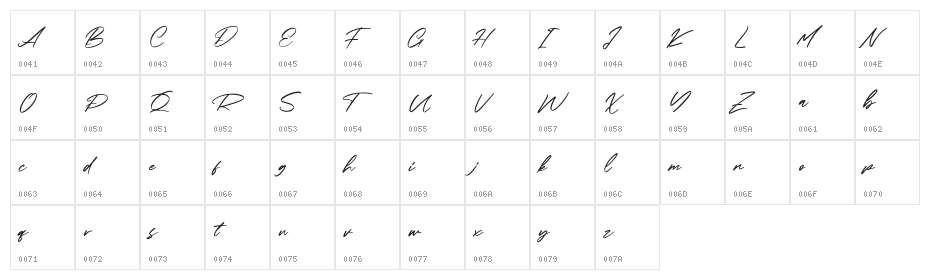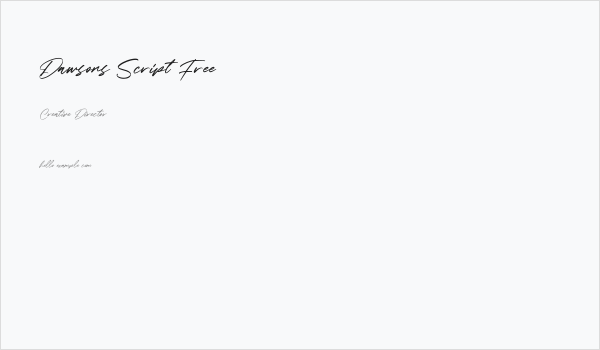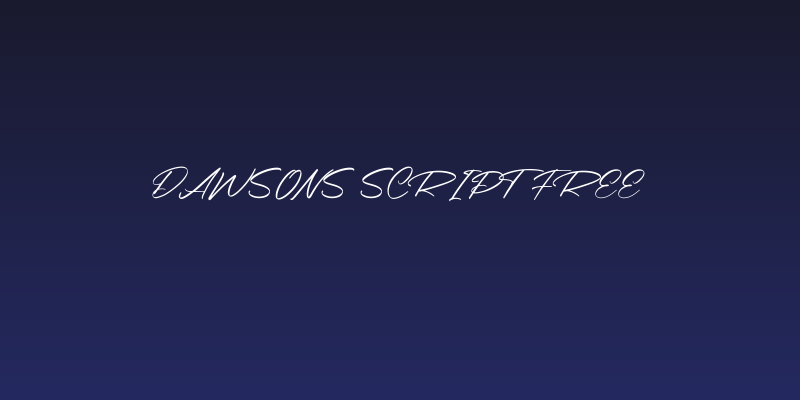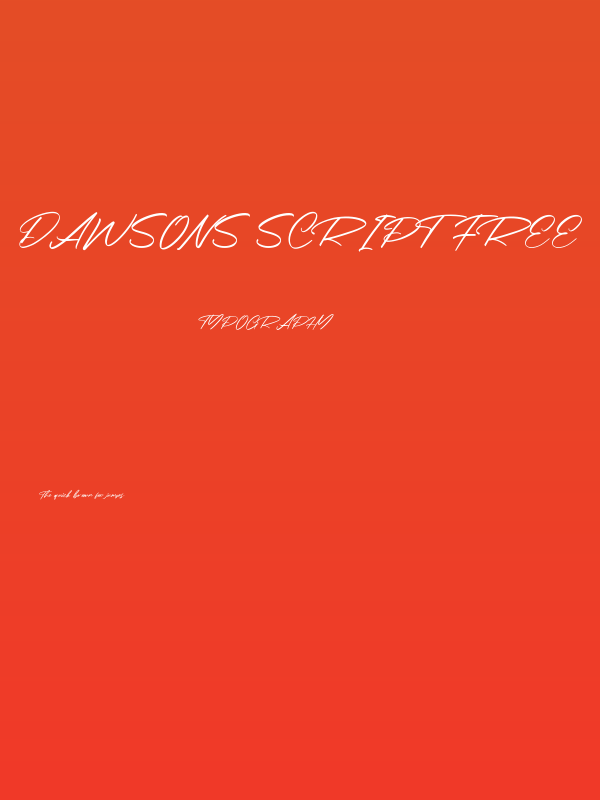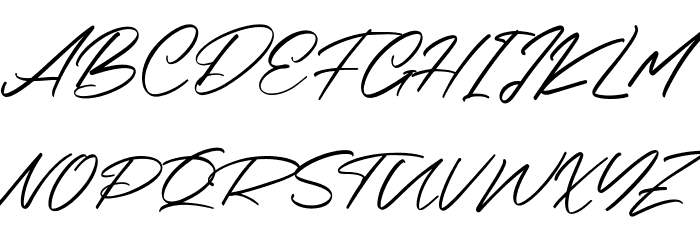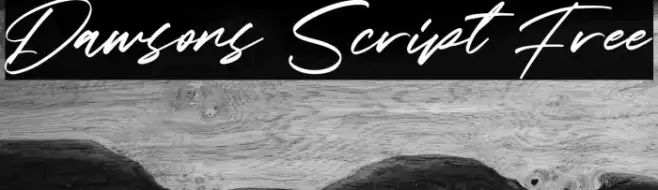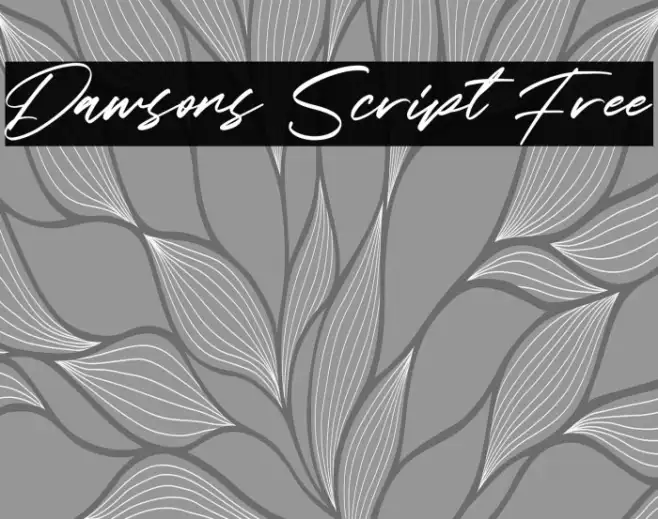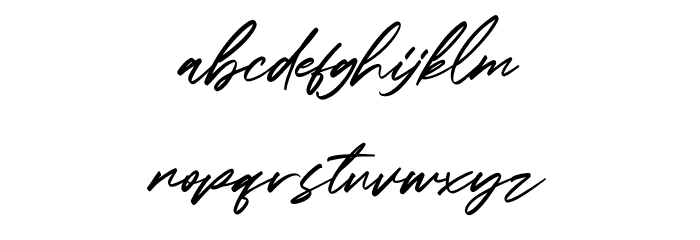
Dawsons Script Free Font
Dawsons Script Free Description
This elegant script font features a fluid and graceful design, characterized by its flowing cursive strokes and smooth connections between letters. The uppercase letters are bold and sweeping, with a distinct flair that adds a touch of sophistication. The lowercase letters maintain a consistent rhythm, enhancing readability while preserving the font's artistic style. The numerals and special characters are crafted with the same attention to detail, ensuring a cohesive look across all text. This font is ideal for projects that require a personal and stylish touch, such as invitations, branding, and decorative designs.
| Proposed Projects | Ideal for wedding invitations, branding, greeting cards, and decorative projects. |